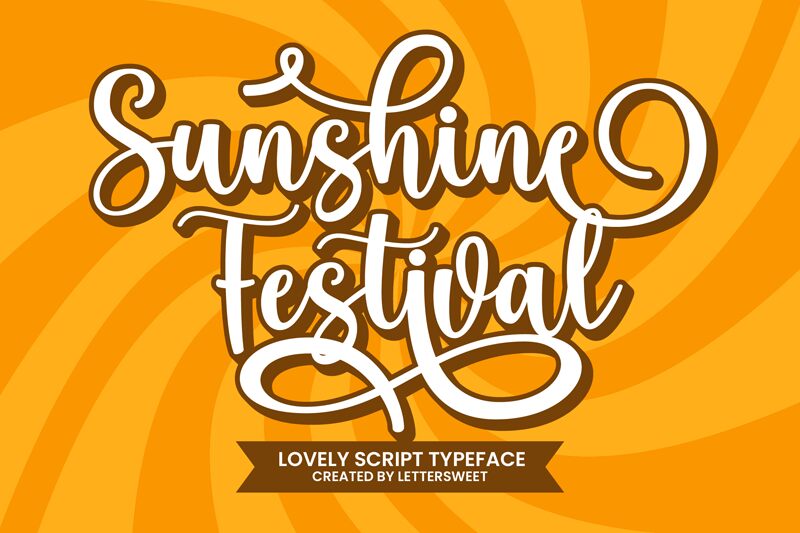
SunshineFestival-Regular
Sunshine Festival, a creation of Lettersweet Studio, dances across the page with a semi-light weight that captures the ephemeral beauty of handcrafted expression. This handwritten font boasts an aesthetic that is both personal and inviting, making it an ideal choice for designs that aim to be intimate yet exuberant. Its fluidity suggests movement and joy, while maintaining readability—a balance often sought but rarely achieved.
The Sunshine Festival font is infused with a casual elegance that lends itself to a variety of creative projects. From whimsical wedding invitations to playful branding or spirited event signage, its distinct character can transform any message into a celebration of style. The flowing letters are reminiscent of carefree days and resonate with the warmth and optimism associated with festive occasions.